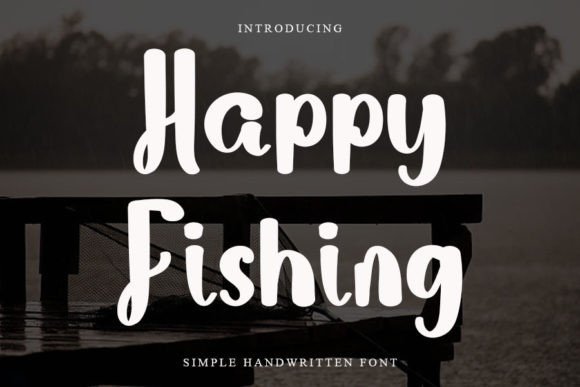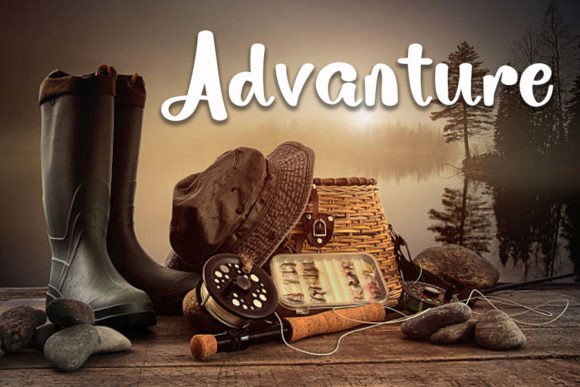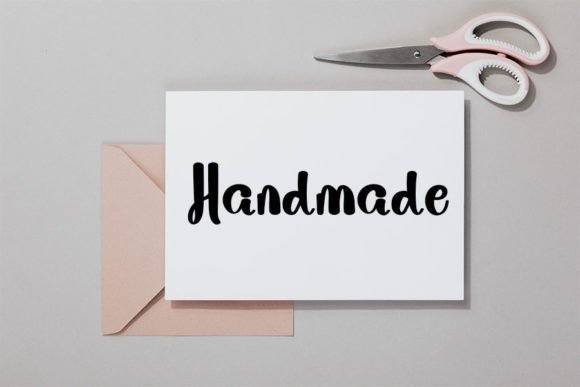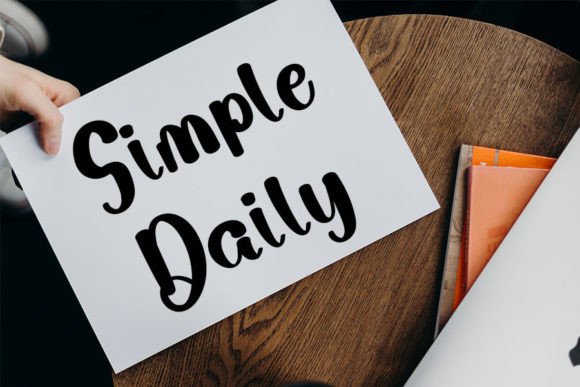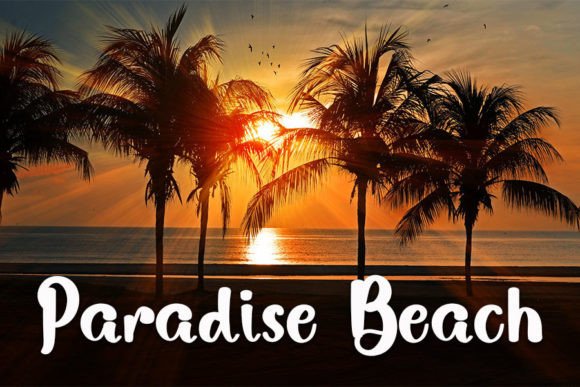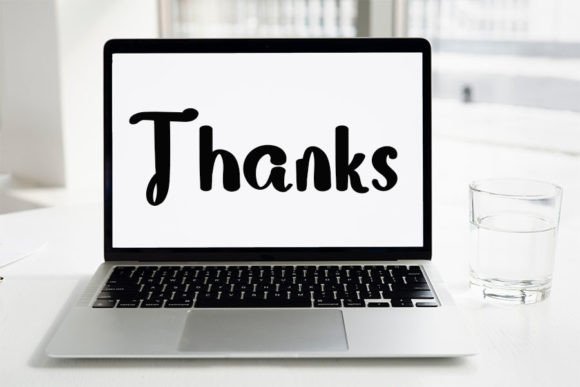
Happy Fishing
About Happy Fishing
Happy Fishing is a magical handwritten font carefully created with a touch of elegance. Clean and a little bit quirky, this font is the perfect fit for all of your logos, branding, social media, and crafty DIY projects.